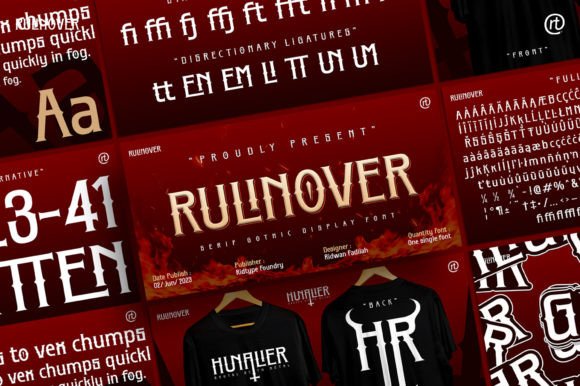
Unleash the Dark Elegance of "Rulinover": A Serif Font that Embraces the Enigmatic and Eerie
Journey into the captivating realm of "Rulinover," a serif font that exudes an air of sophistication and mystery. Inspired by the adrenaline-fueled tension of gothic horror movies and games, Rulinover transcends the boundaries of ordinary typography, inviting you to explore the depths of darkness and intrigue.
With its bold and commanding presence, Rulinover asserts itself as the perfect font for capturing the essence of horror and the obscure. Its sharp serifs and intricate details evoke a sense of suspense and unease, creating a visually striking impact that lingers in the mind.
Whether you're a seasoned designer or a creative enthusiast, Rulinover offers a versatile canvas for expressing your darkest desires. Its timeless elegance lends itself to a myriad of applications, from haunting book covers and unsettling movie posters to eerie invitations and bone-chilling social media posts.
Harness the power of Rulinover to cast a spellbinding aura over your creative projects. Let its dark allure captivate your audience, leaving them spellbound and craving for more.
Key Features of Rulinover:
- Serif font inspired by gothic horror movies and games
- Emulates the essence of horror and the obscure
- Perfect for creating suspenseful and haunting designs
- Versatile font suitable for a wide range of applications, including book covers, movie posters, invitations, and social media posts
- Bold and commanding presence with sharp serifs and intricate details
- Evokes a sense of unease and intrigue
Why Choose Rulinover?
- Unleash your creativity with a font that embodies the dark and mysterious.
- Engage your audience with visually captivating designs that leave a lasting impression.
- Stand out from the crowd with a unique and distinctive font that reflects your individuality.
- Experience the thrill of crafting designs that evoke a sense of suspense and unease.
- Gain access to a versatile font that adapts seamlessly to any creative project.
Embark on a Typographic Adventure with Rulinover
Rulinover is more than just a font; it's an invitation to explore the unexplored depths of your imagination. Embrace the power of the dark and mysterious, and let Rulinover guide you through a typographic adventure that will leave your audience breathless.